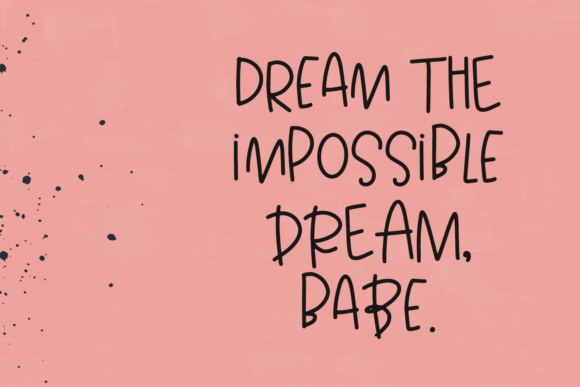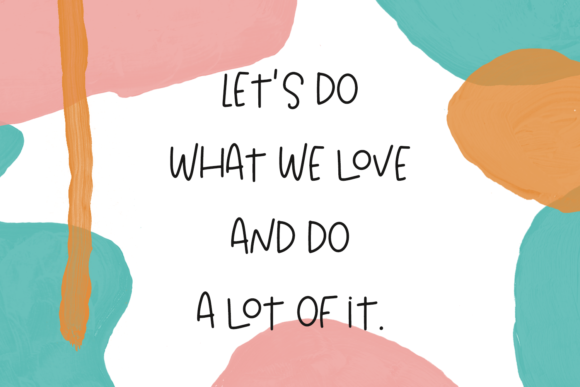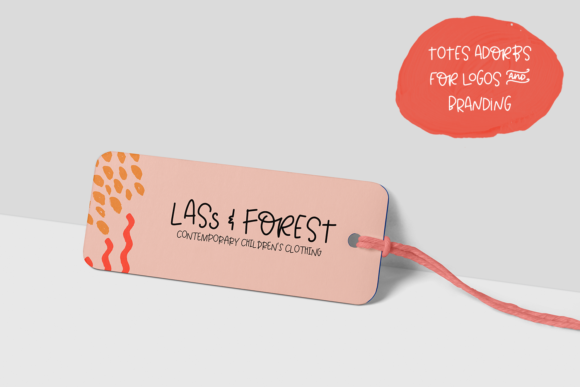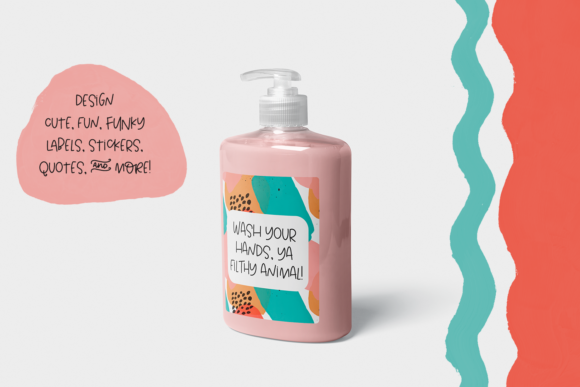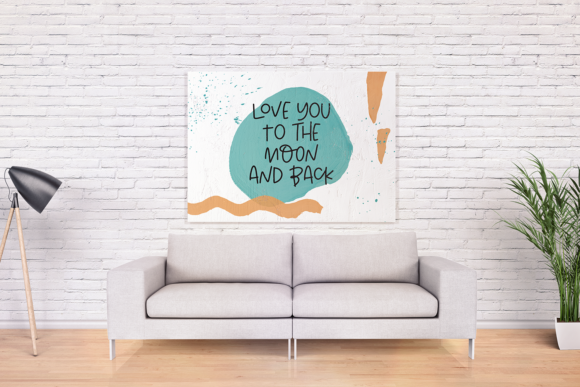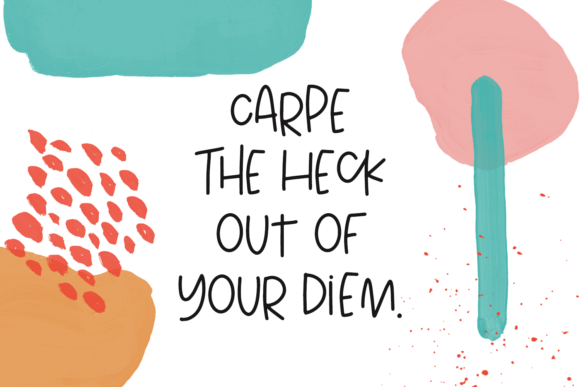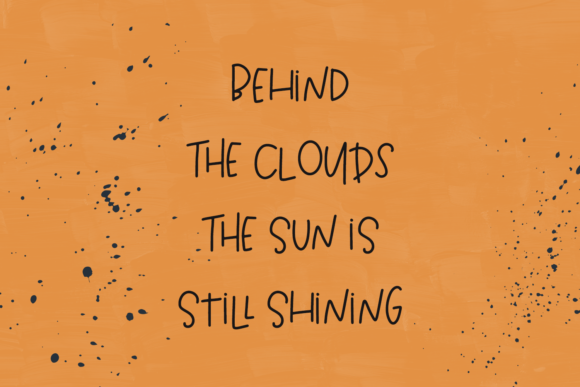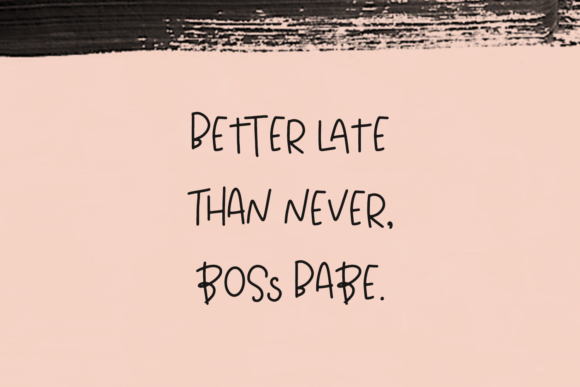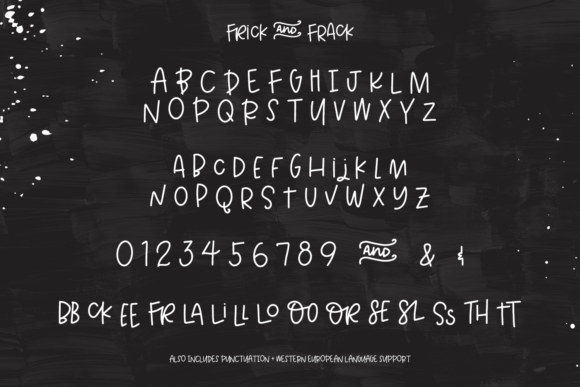
Frick and Frack Font
About Frick and Frack Font
Frick and Frack is a playful and quirky handwritten font. Incredibly cute and fun, this font will make each of your designs look lovely.